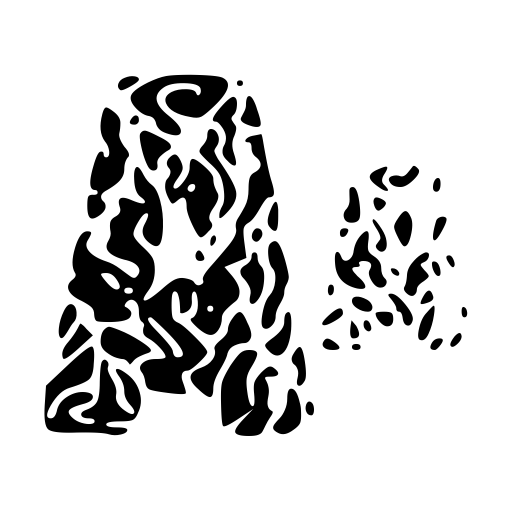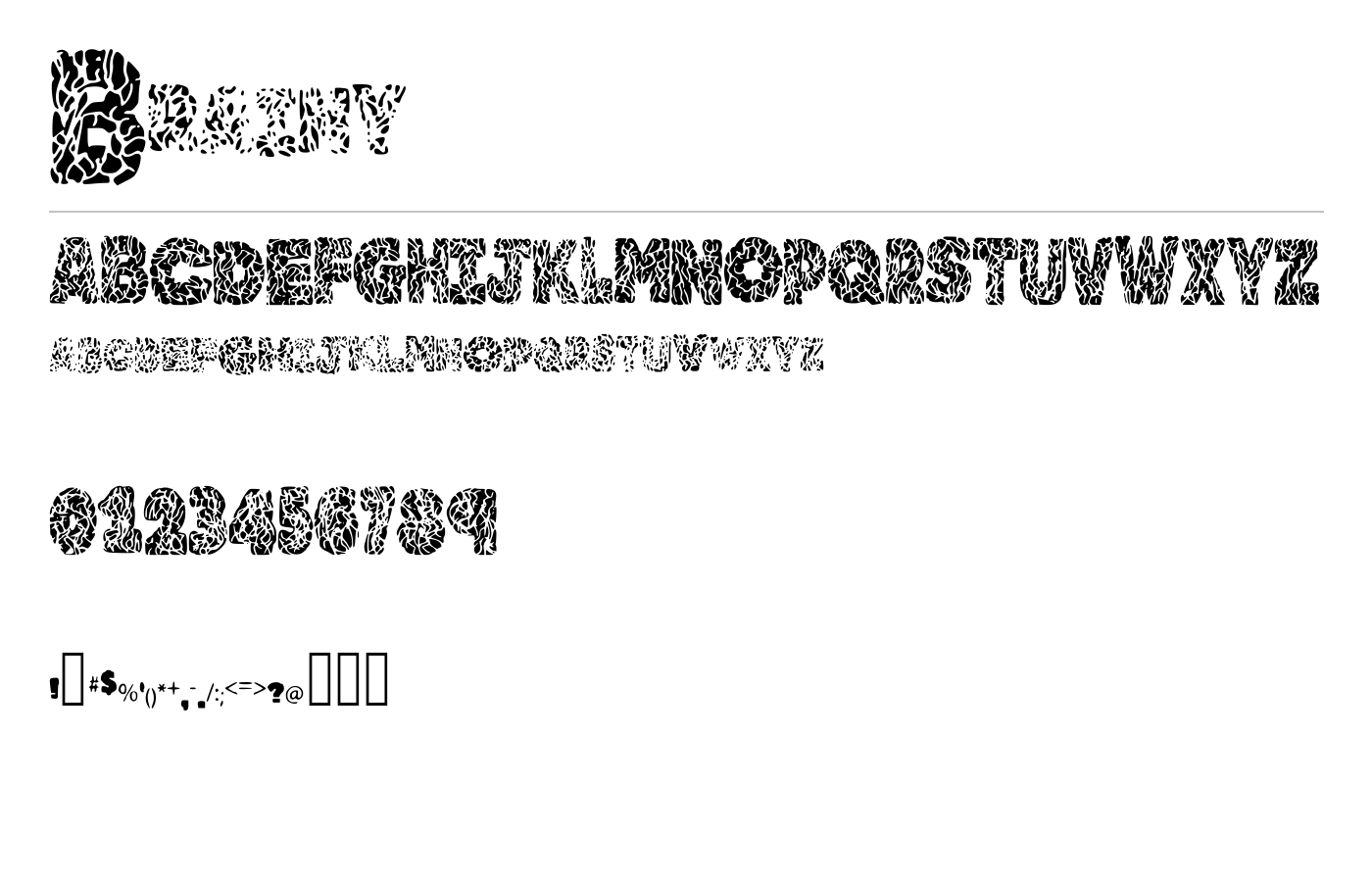
Brainy Font is a bold, decorative typeface with a highly textured, organic pattern filling each letter, giving it a unique, playful, and eye-catching look. Best suited for creative projects, posters, or logos that need a standout, artistic flair, this font works well in display sizes where its intricate details can be fully appreciated. Its whimsical style makes it ideal for brands or designs that want to convey creativity and fun.
Brainy Font
About Brainy Font